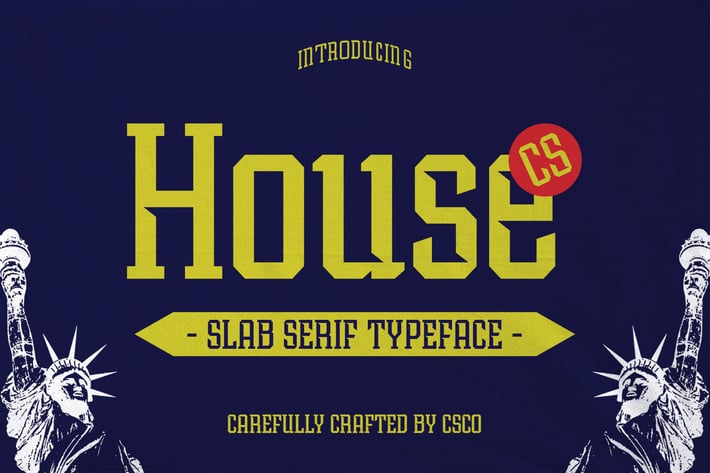
House – Sporty Font
CS House – Sporty Font: Bold, Dynamic, and Full of Energy
Slab Serif with a Sporty Edge
CS House – Sporty Font is a bold slab serif typeface designed to bring strength and energy to any design. The sturdy slab serifs create a sense of stability, while the energetic and dynamic characteristics reflect speed and motion, making it the perfect choice for sports-related projects. Whether you’re designing for a team, an event, or a fitness brand, this font offers the perfect combination of boldness and athleticism.
Strong, Bold Design for Maximum Impact
With thick, defined edges and strong letterforms, CS House demands attention. Its bold presence ensures that any text stands out, whether it’s displayed on a sports poster, team logo, or advertising material. The robust slab serifs give the font a grounded, reliable feel, while the sporty design elements evoke excitement and vitality, ensuring that your design makes a strong visual impact.
Perfect for Sports Branding and More
From sports teams and athletic logos to fitness brands and event promotions, CS House is tailor-made for projects that require a powerful, energetic font. Its clear, thick strokes ensure readability at various sizes, making it ideal for everything from billboards to social media graphics, while its athletic vibe adds an extra layer of personality to your designs.